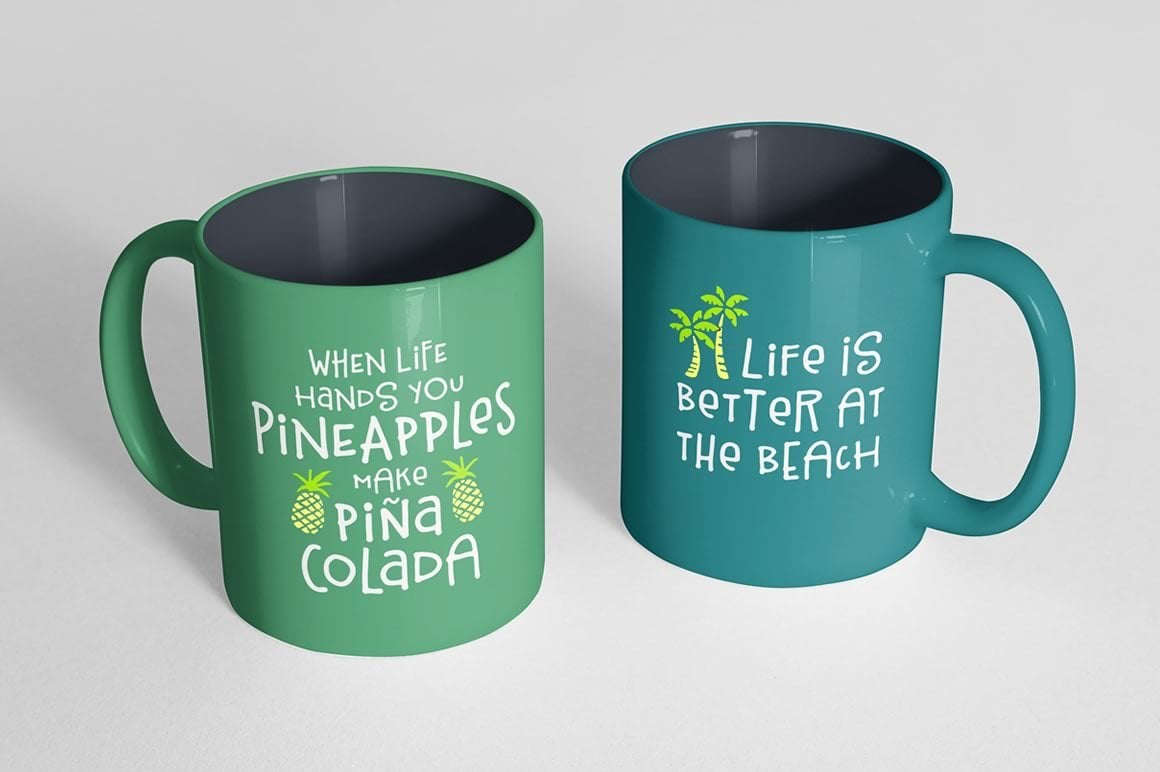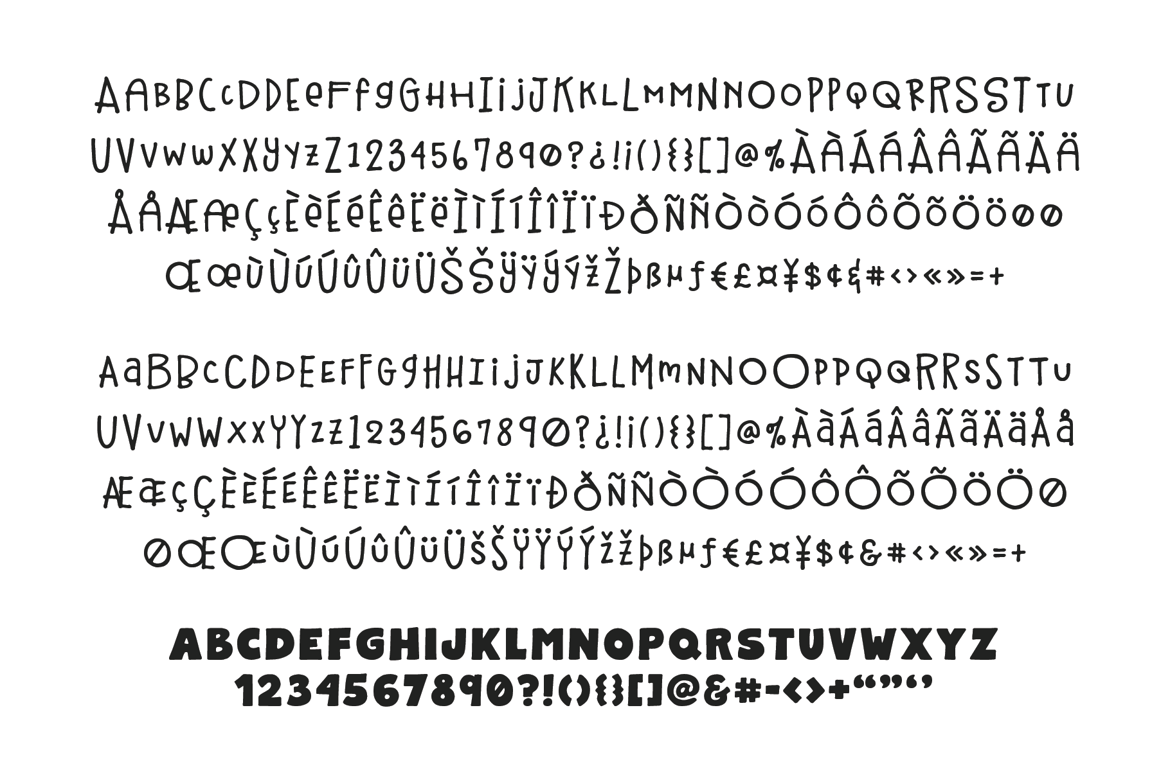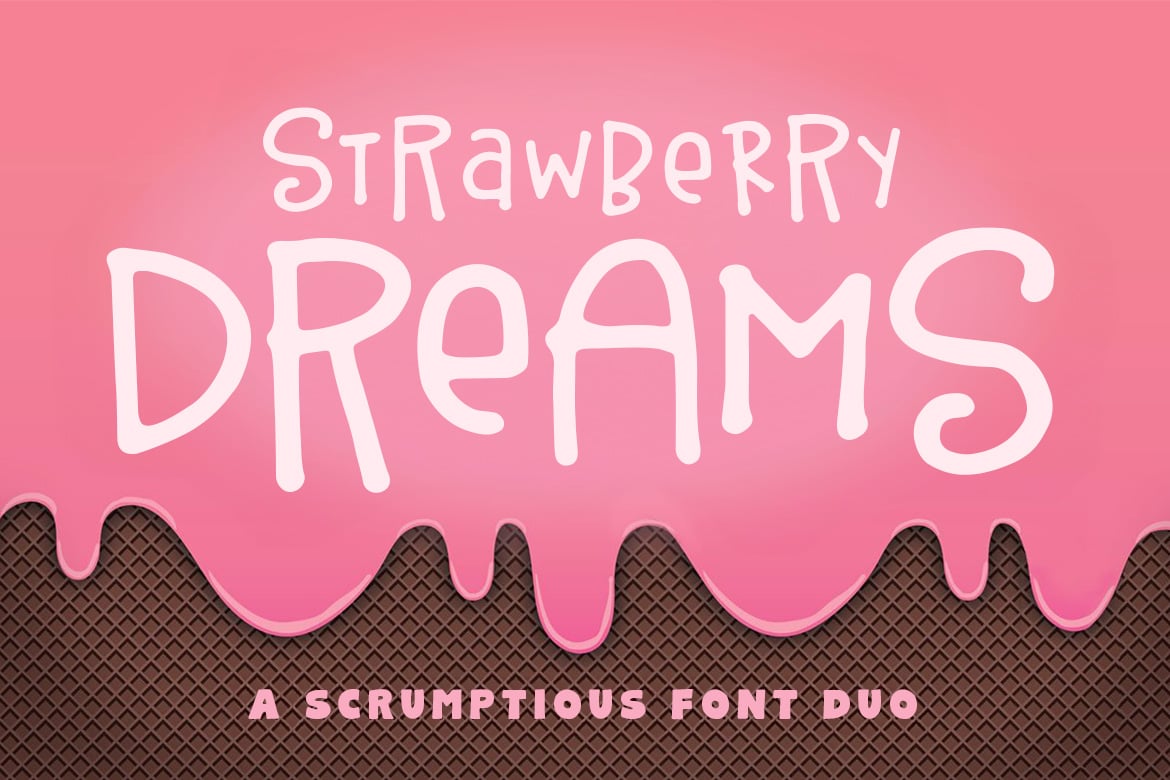
Strawberry Dreams Font
Feast your eyes on Strawberry Dreams! A sweet font duo that conjures up images of simpler times. Together with the alternates font, Strawberry Dreams gives you 4 variations of each letter creating several different options to choose from. Use the block font to add emphasis and style.